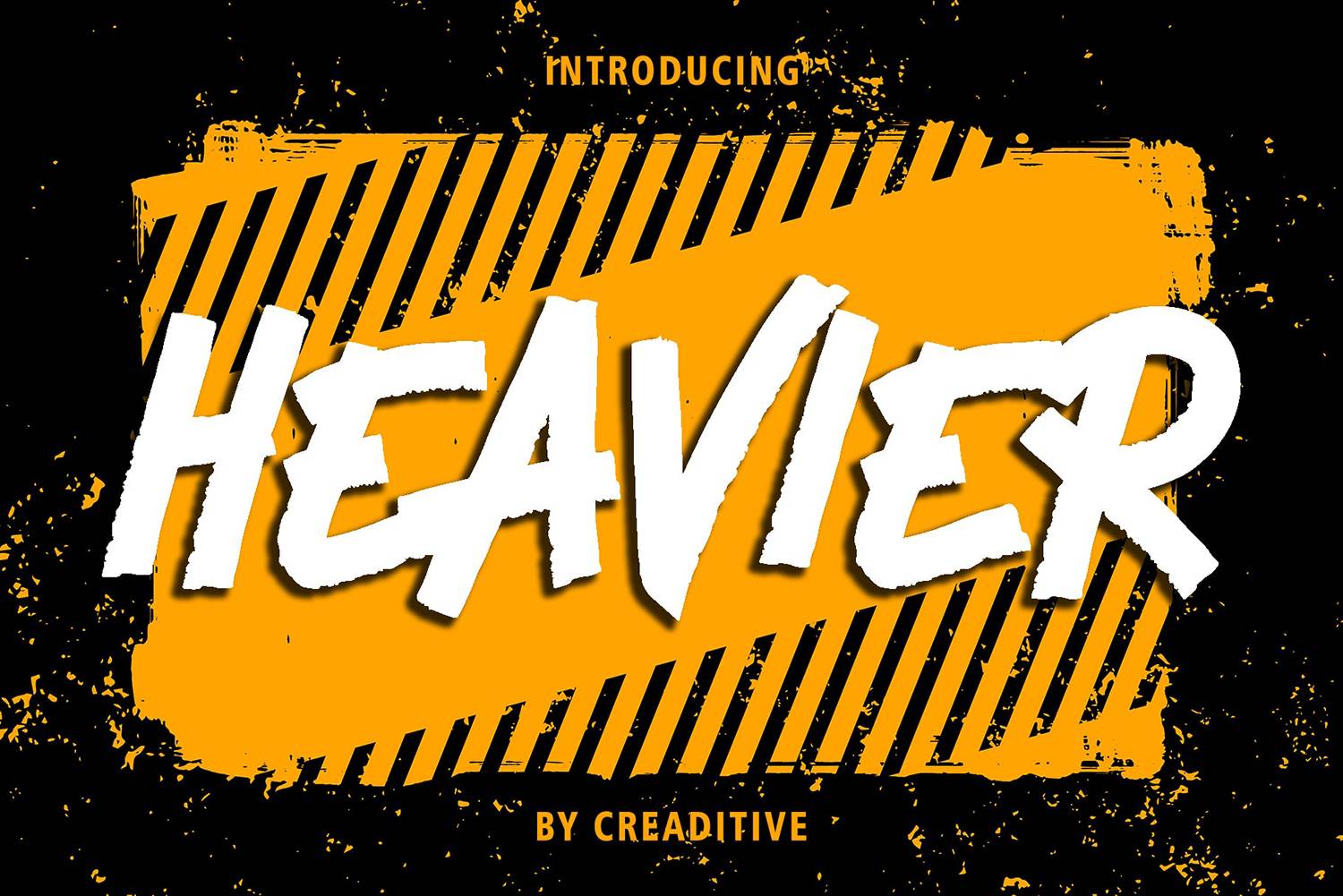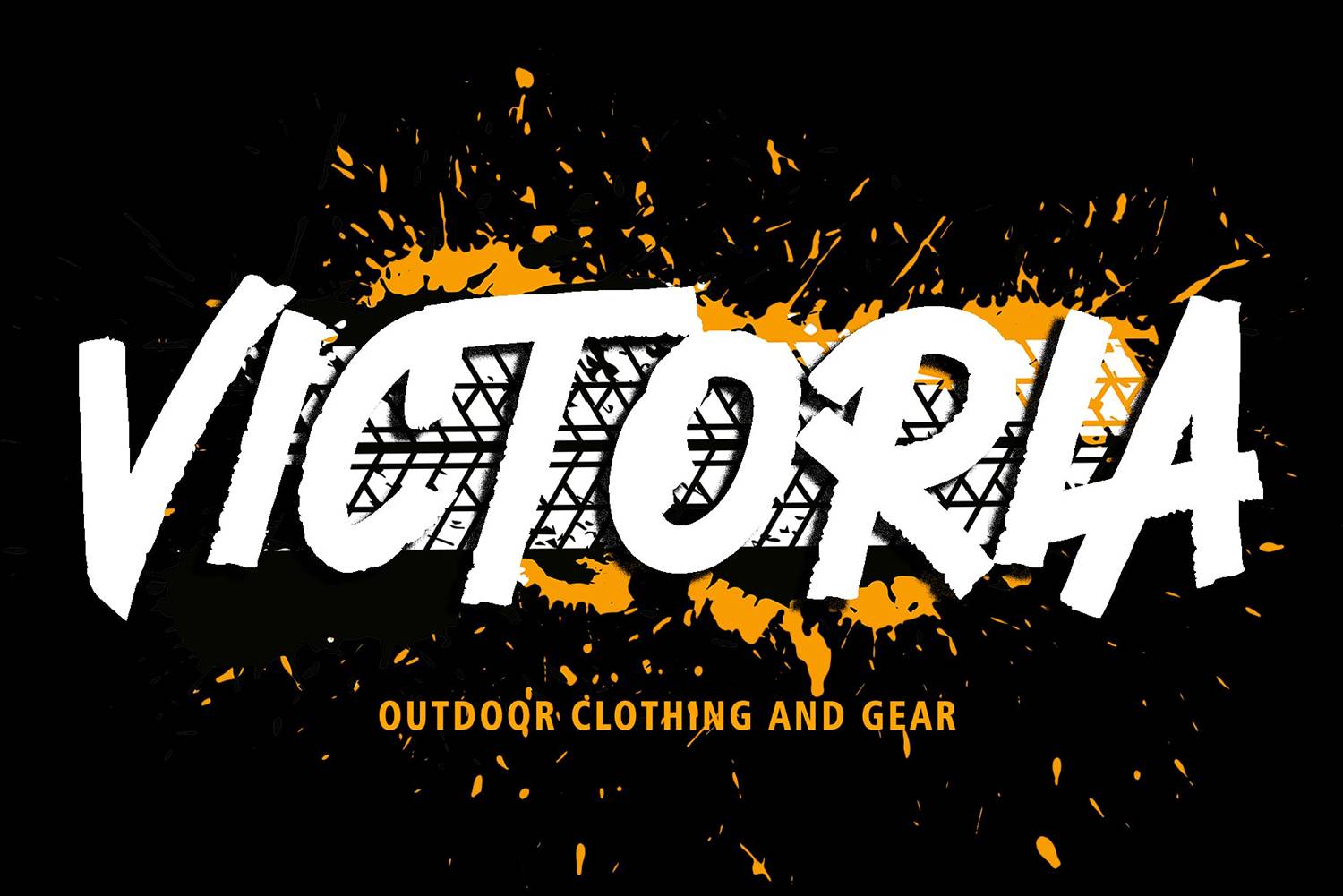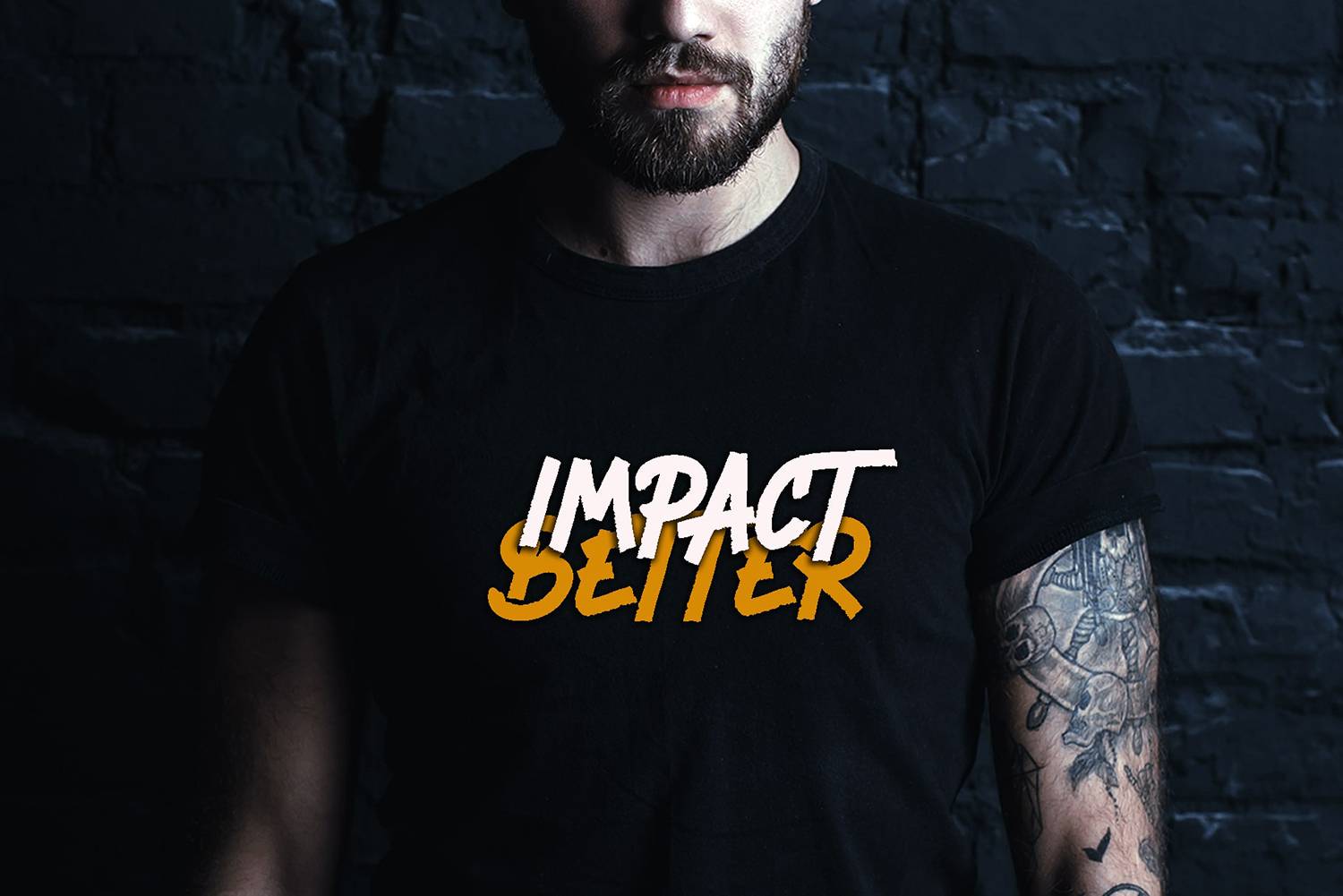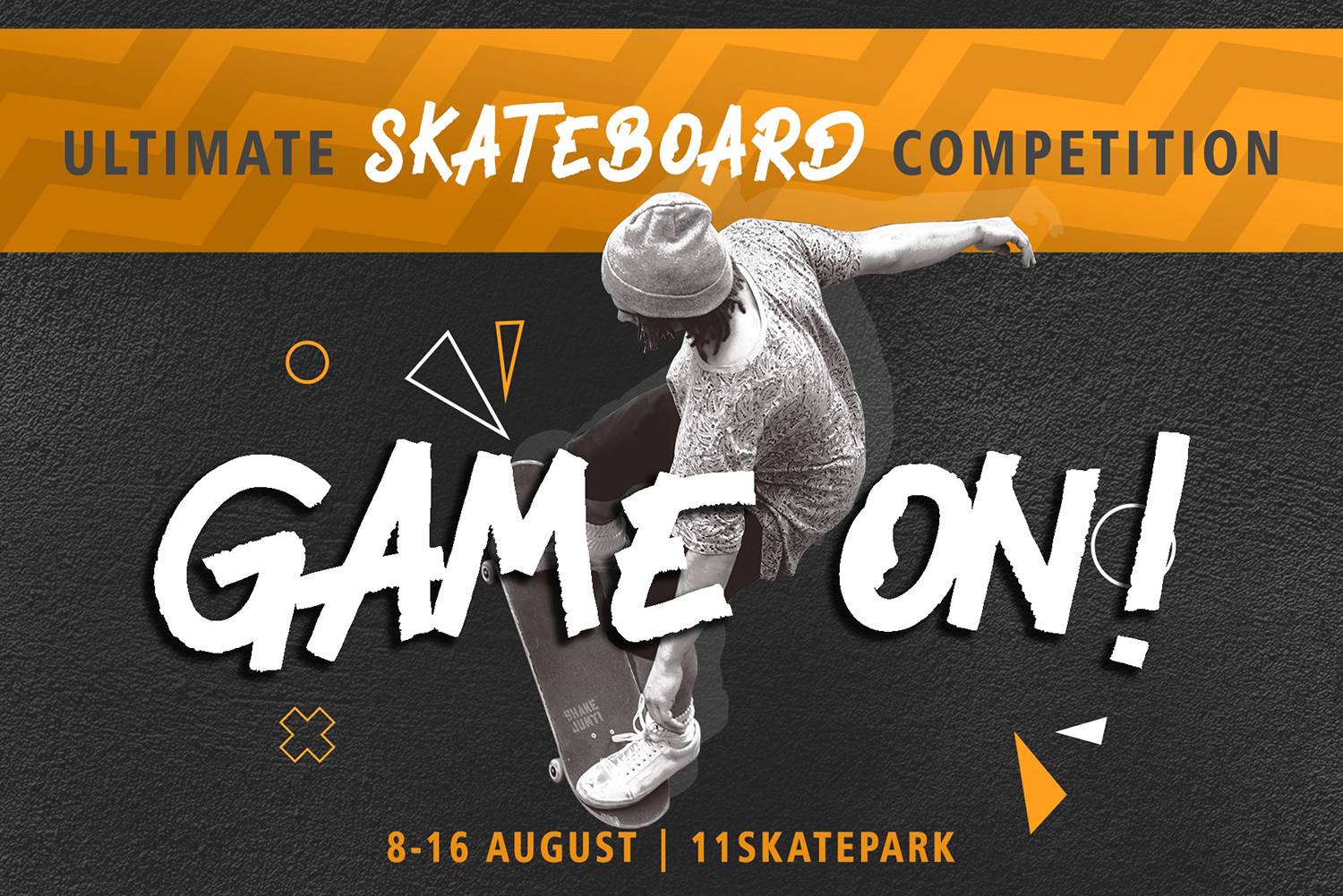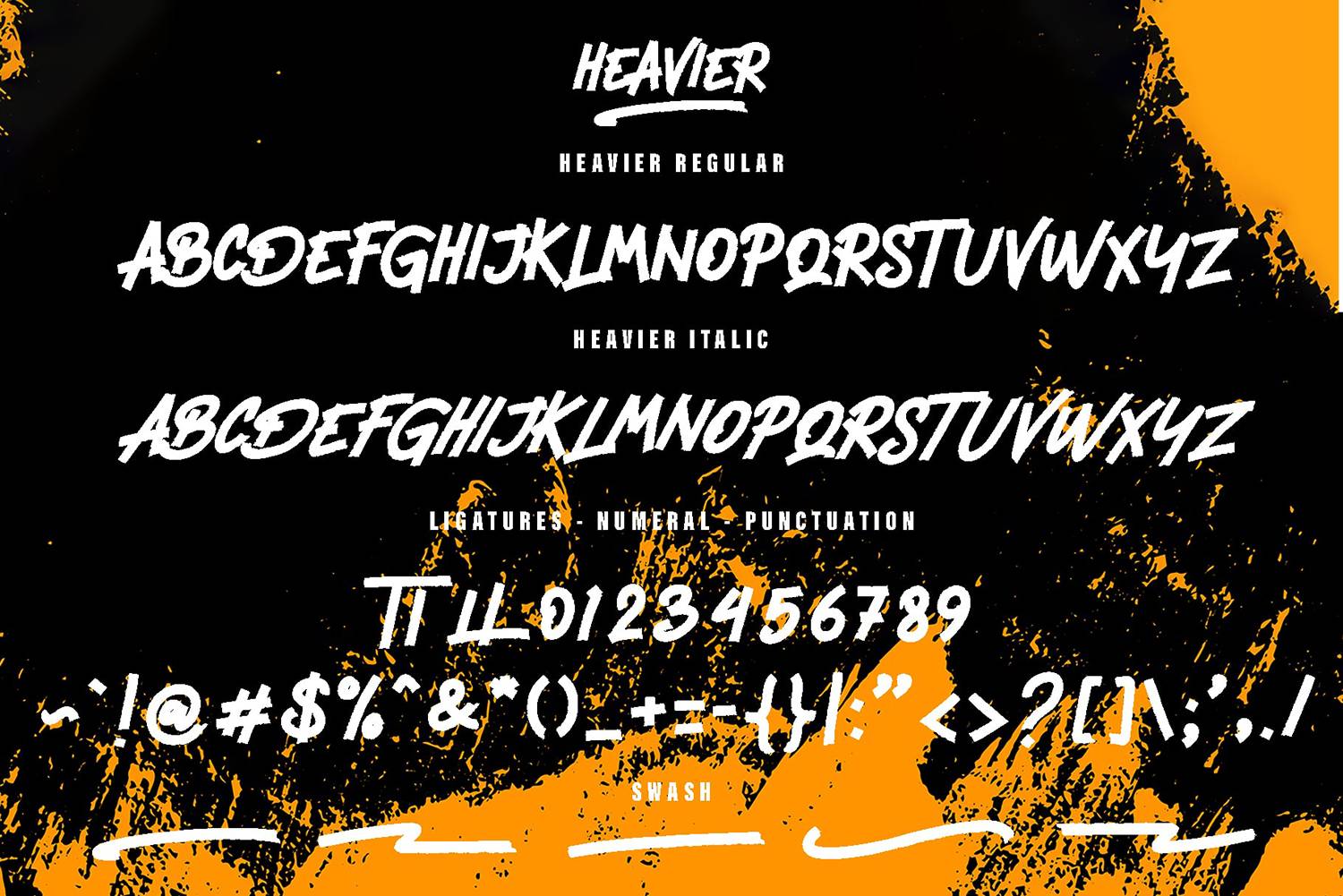
Heavier Font is a bold, energetic script-style typeface that features a brush-like texture and slightly rough edges, giving it a casual, hand-painted feel. Its strong weight and dynamic strokes make it perfect for creating impactful headlines or expressive branding that demands attention and conveys a lively, informal personality. This font works well for posters, logos, and creative projects seeking a bold and approachable look.
Heavier Font
About Heavier Font
| Font family | Heavier Font |
| Release date | 2021-06-29 |
| Designer | Aditiyo Dwi Putranto |